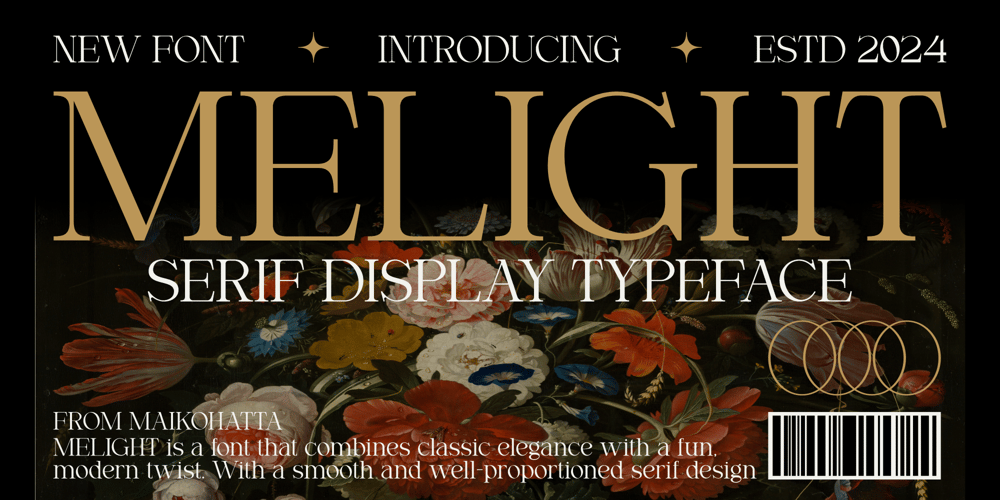
Melight Font Family was designed by Gilang Ternadho and published by Maikohatta. Melight contains 1 styles and family package options. Introducing our new product Melight – Serif Display TypefaceThis font features a balanced proportion of stroke thickness and fineness, creating attractive and easy-to-read visuals. This modern serif style is often characterized by a bold distinction between thick and thin lines, providing a touch that is understated but still stands out.